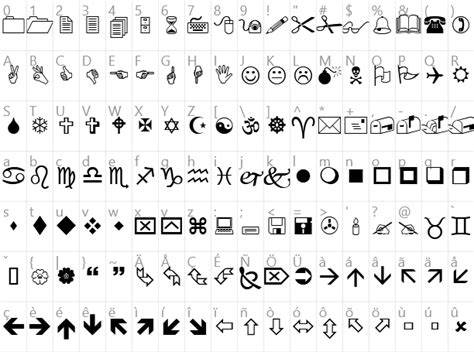
Wingdings Fonts: A Guide For 2023
What are Wingdings Fonts?
Wingdings fonts are a set of special symbols and characters that were created by Microsoft in the early 1990s. They are often referred to as “dingbats” because they are designed to look like symbols or illustrations. Wingdings fonts are most commonly used in Microsoft Office applications such as Word, PowerPoint, and Excel. They can also be used in webpages, emails, and other applications. The Wingdings font was originally designed to be used in documents that contained a lot of text, as the characters are designed to be more visually appealing than traditional text fonts.
Types of Wingdings Fonts
Wingdings fonts come in several varieties. The most common type is the standard Wingdings font, which contains the basic symbols and characters. Other versions of Wingdings include Wingdings 2, Wingdings 3, and Webdings. Each of these versions has its own set of symbols and characters. In addition, some versions of Wingdings fonts contain additional symbols that are not included in the standard version.
How to Use Wingdings Fonts
Benefits of Using Wingdings Fonts
Wingdings fonts can be used to add visual interest to documents. They can make a document look more professional and interesting. In addition, Wingdings fonts are easy to read, which makes them a great choice for documents that need to be quickly and easily understood. Wingdings fonts can also be used to create logos, symbols, and other graphics.
Wingdings fonts are a great way to add visual interest to your documents. They are easy to use and can be used to create logos, symbols, and other graphics. With the wide variety of Wingdings fonts available, you can easily find one that fits your needs. So, if you’re looking for a way to make your documents stand out, Wingdings fonts are a great choice.